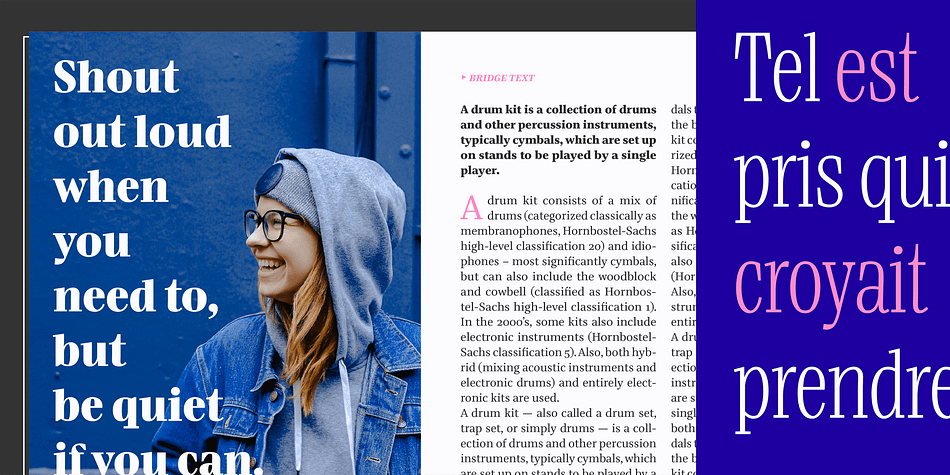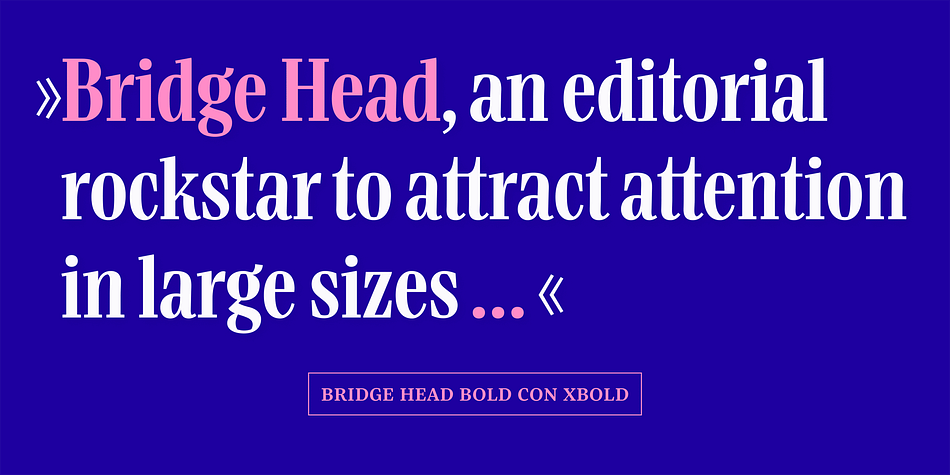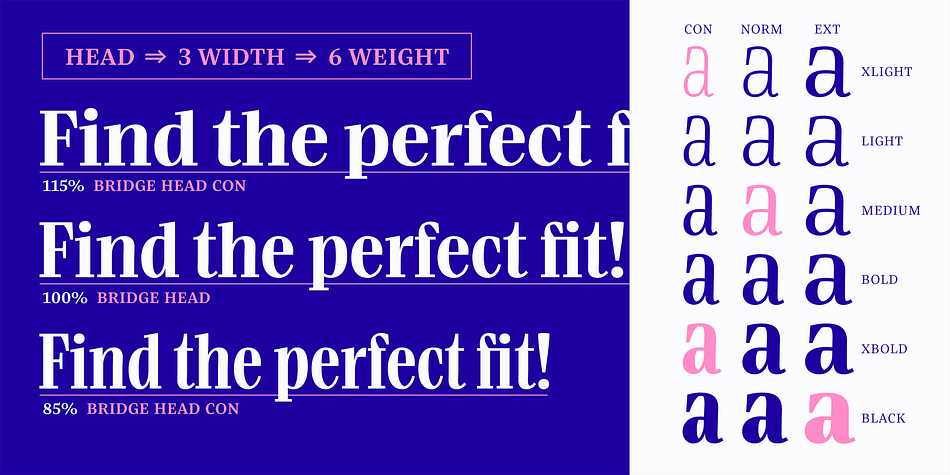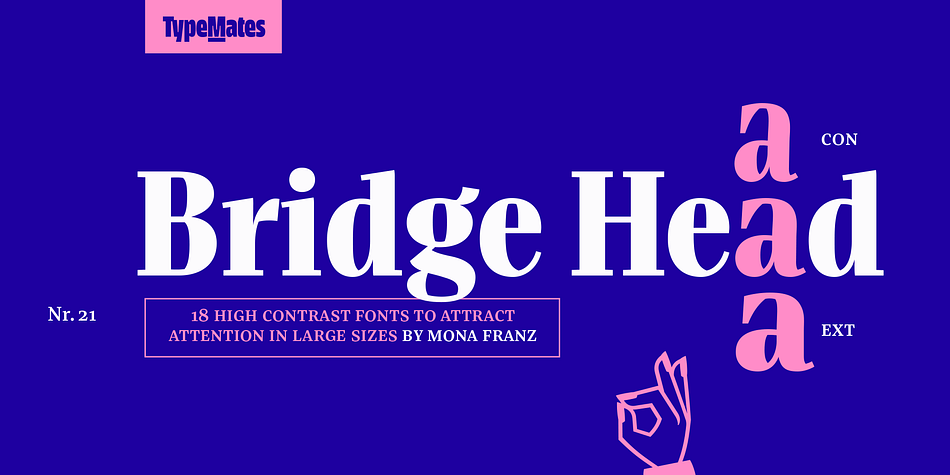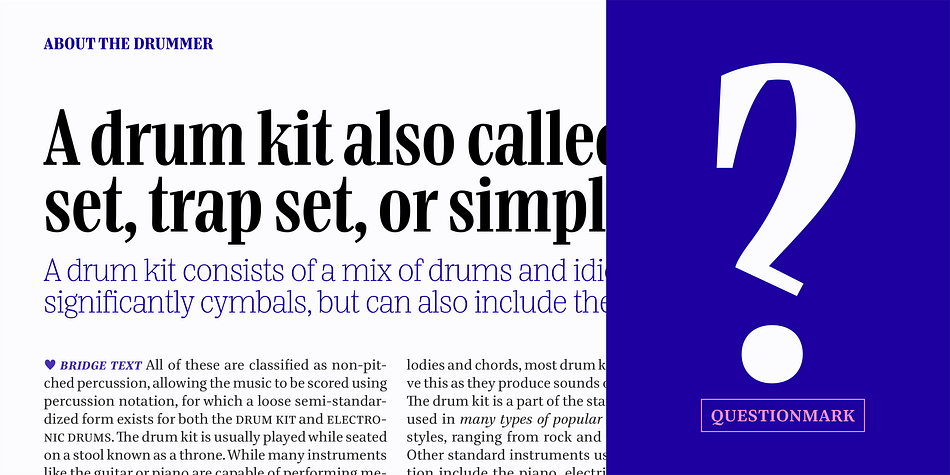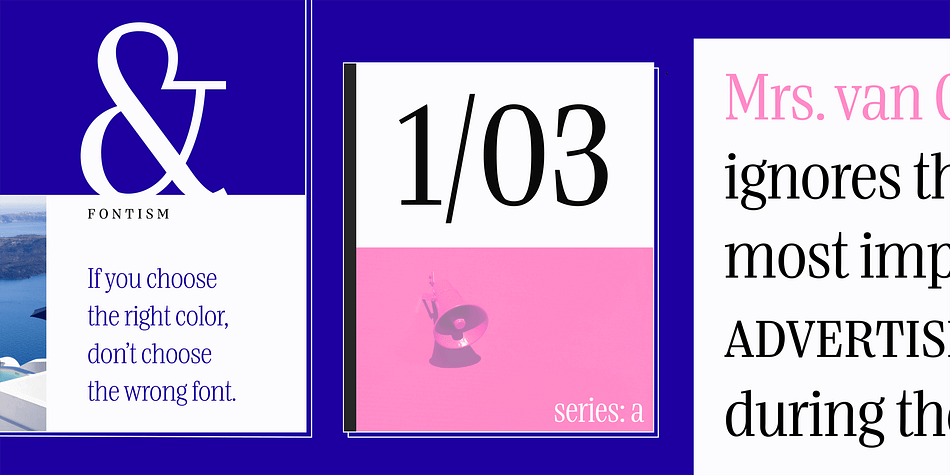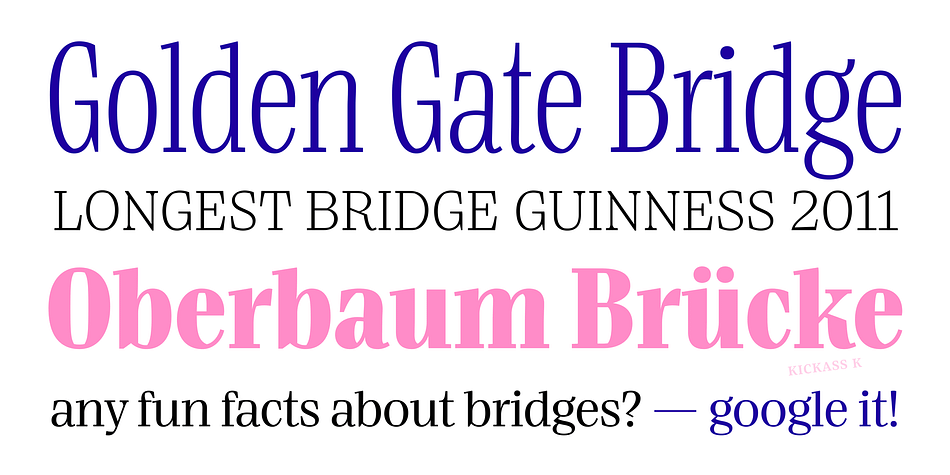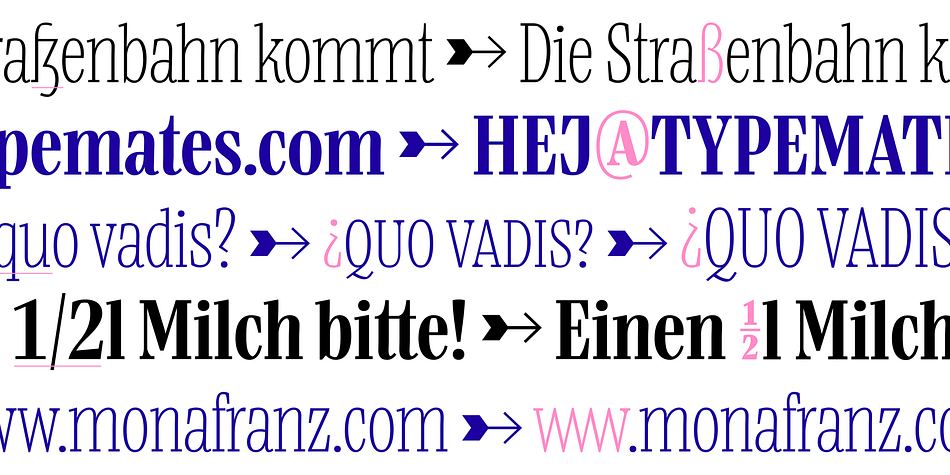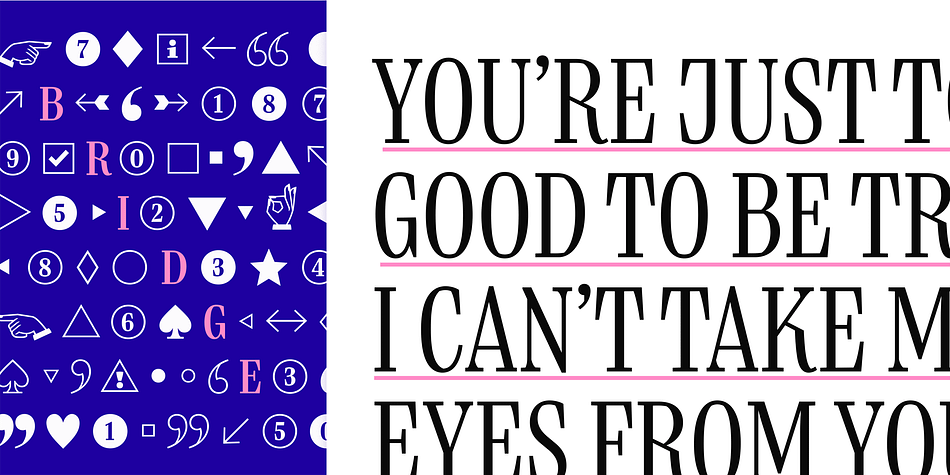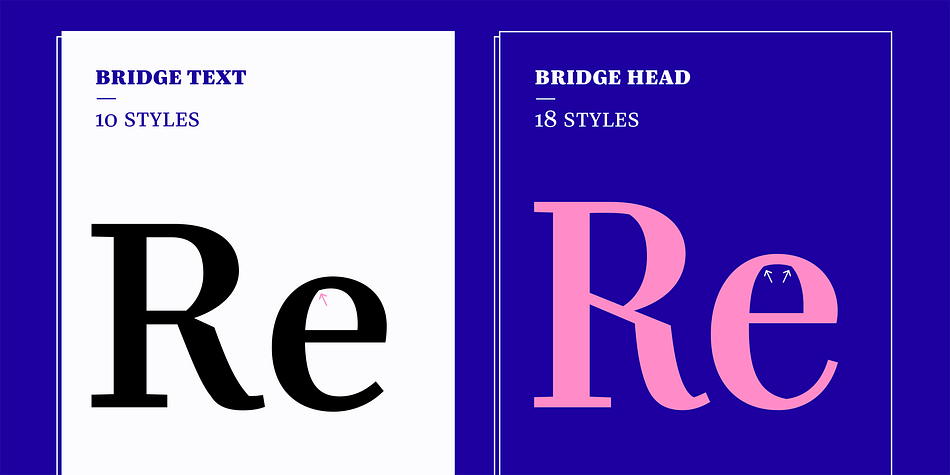
Designed by Mona Franz, Bridge Head is a display serif and serif font family. This typeface has eighteen styles and was published by TypeMates.
Bridge Head, an editorial rockstar to attract attention in large sizes with high contrast and expressive geometric counters. With three different widths in six weights, Bridge Head has the perfect voice for stunning titles. A solo career in posters, banners and logos doesn’t stop Bridge Head from rocking in concert: each of her 18 display styles can work together with Bridge Text to tell stories and build complex typographic ensembles in editorial and corporate design.
Where other display typefaces let their thin strokes fade away, Bridge Head keeps the volume and emphasises her wedge serifs and curvy detailing. A large x-height brings out her distinctions, like the four-cornered counter shapes, the voluminous terminals and the monolinear lines that connect her thick strokes and help give Bridge her graphic image.
A type system flexible enough to bridge print publishing to digital media, with a kickass K and rebellious R, Bridge Head can shout out loud and make a design that can take her intensity unmistakable and independent of slick conventions.
With hands-on OpenType features like small caps and case-sensitive punctuation and more than 800 glyphs, Bridge can fulfil your every display need. Adobe Latin 3 (and beyond) encoding gives a wide range of Latin language support and additional helpful symbols like the charming manicules and dingbats complete a rich typographic palette.
Bridge’s ideas and foundations began during TypeMedia 2018 (https://www.typemedia2018.com/mona) in The Hague as a master project under the supervision of Erik van Blokland, Paul van der Laan, and Peter Verheul. Thank you